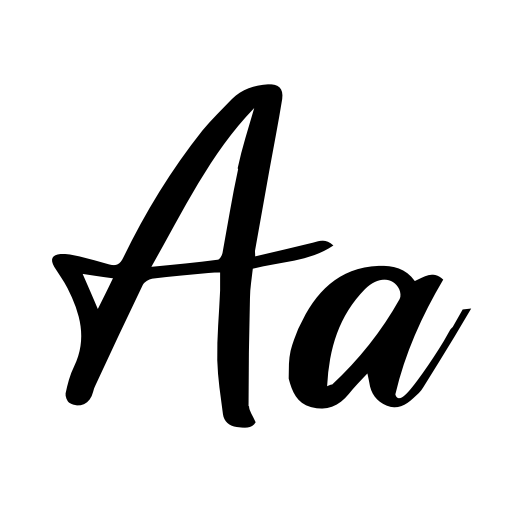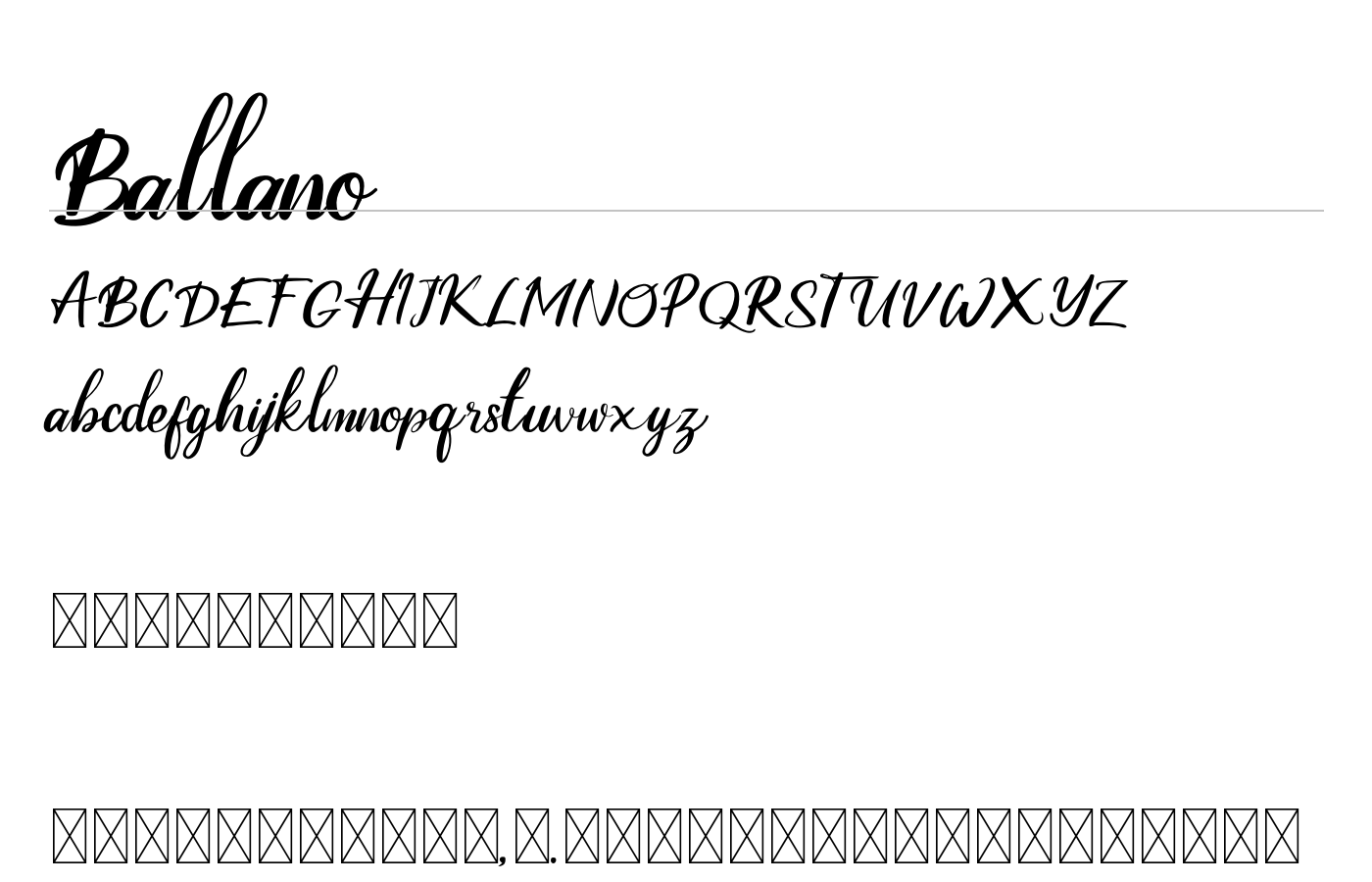
Ballano is an elegant script font with smooth, flowing strokes that combine a light to medium weight with a tall x-height for readability. Its rounded, handwritten style evokes a sense of charm and sophistication, making it perfect for invitations, branding, and stylish editorial projects that seek a personal yet polished touch. The font’s graceful letterforms and natural rhythm lend themselves well to designs aiming for a refined yet approachable aesthetic.
Ballano Font
About Ballano Font
| Font family | Ballano Font |
| Designer | Yuyut Baskoro |